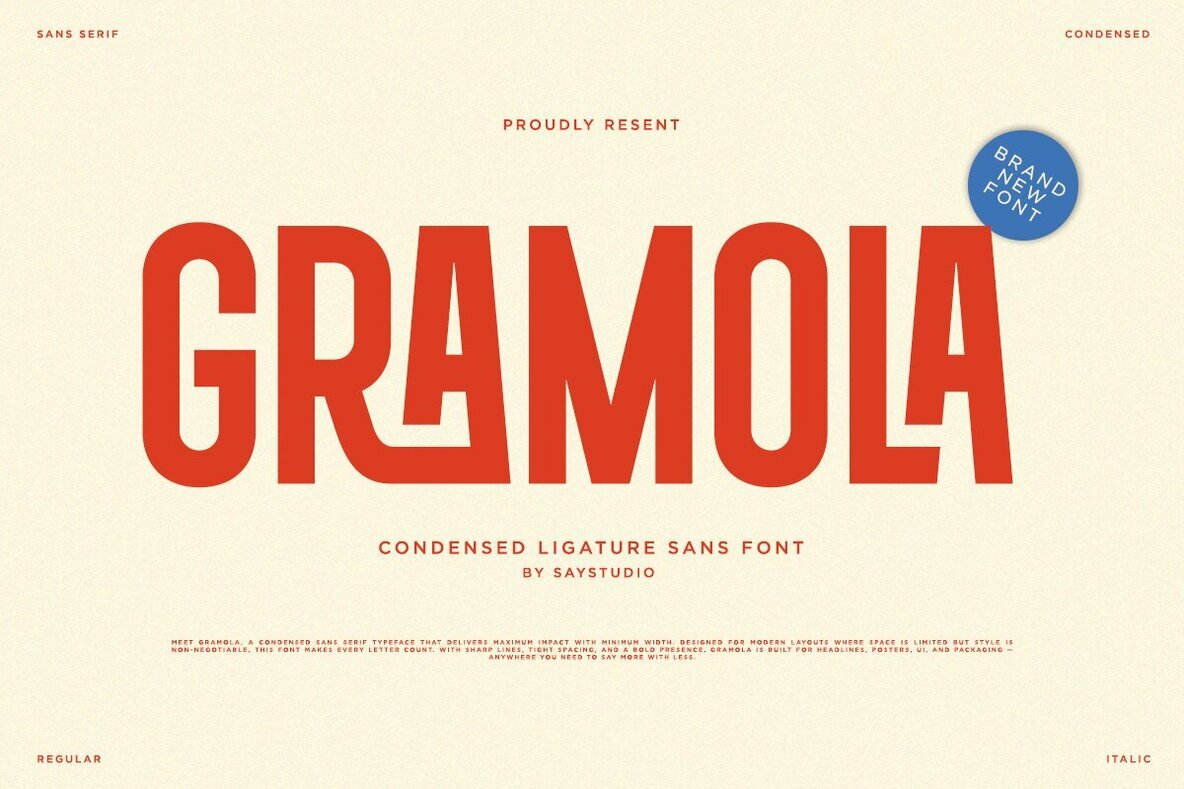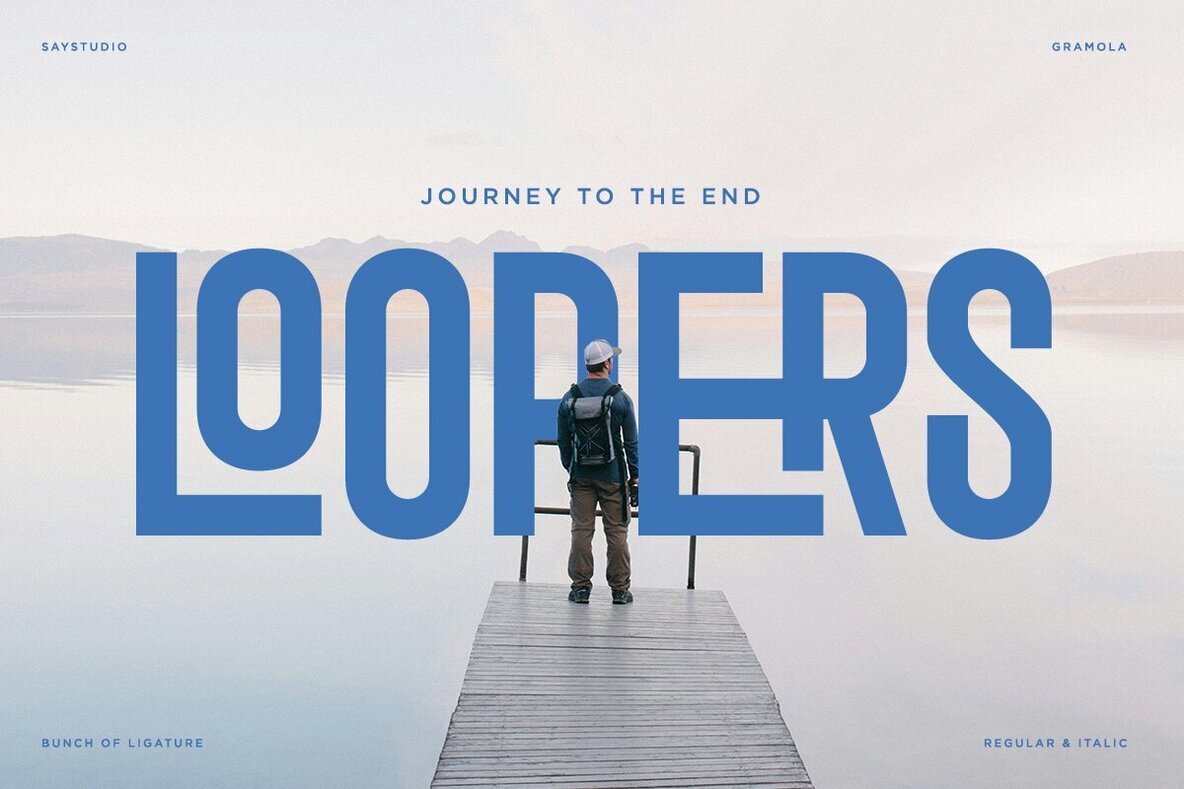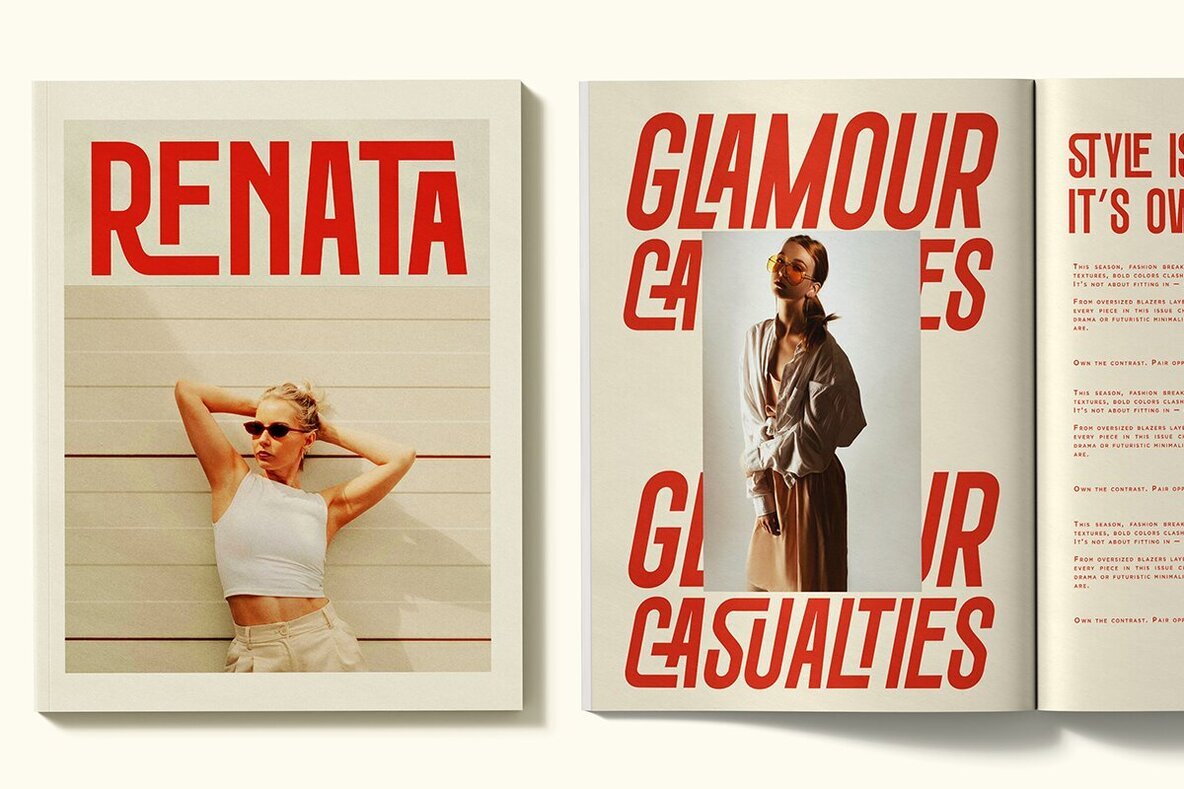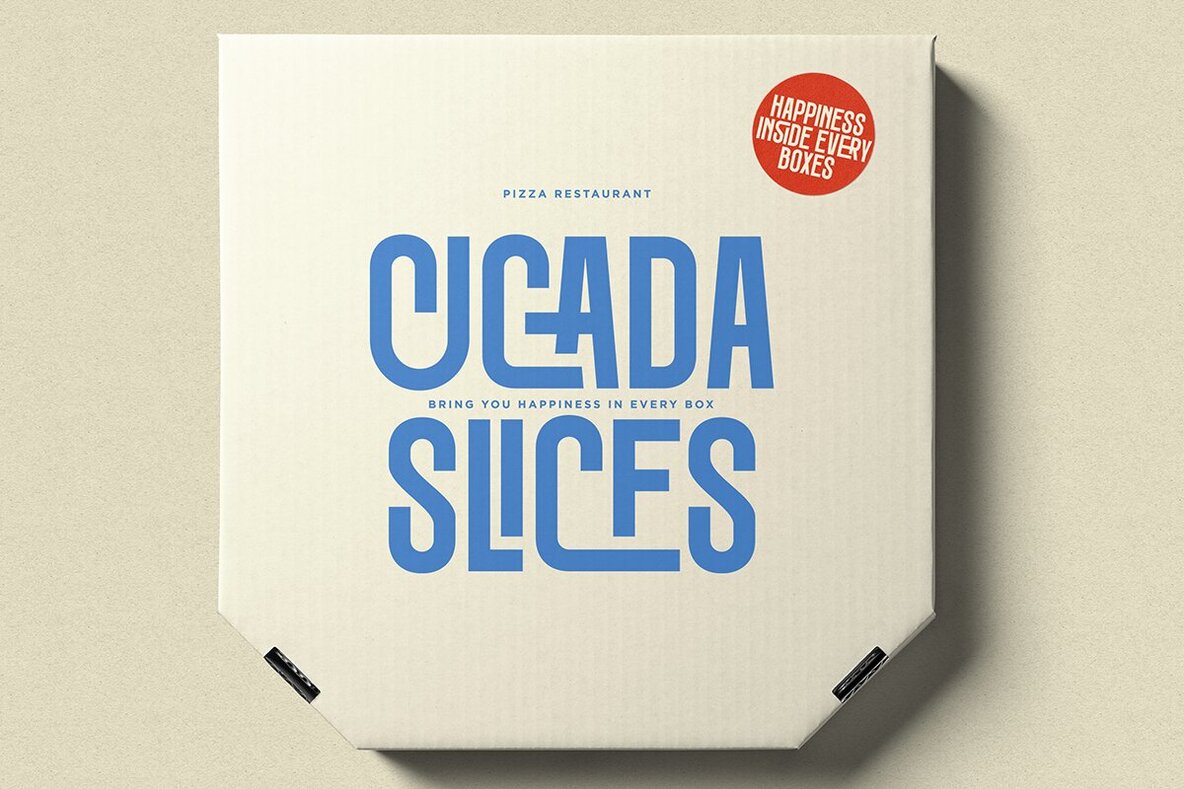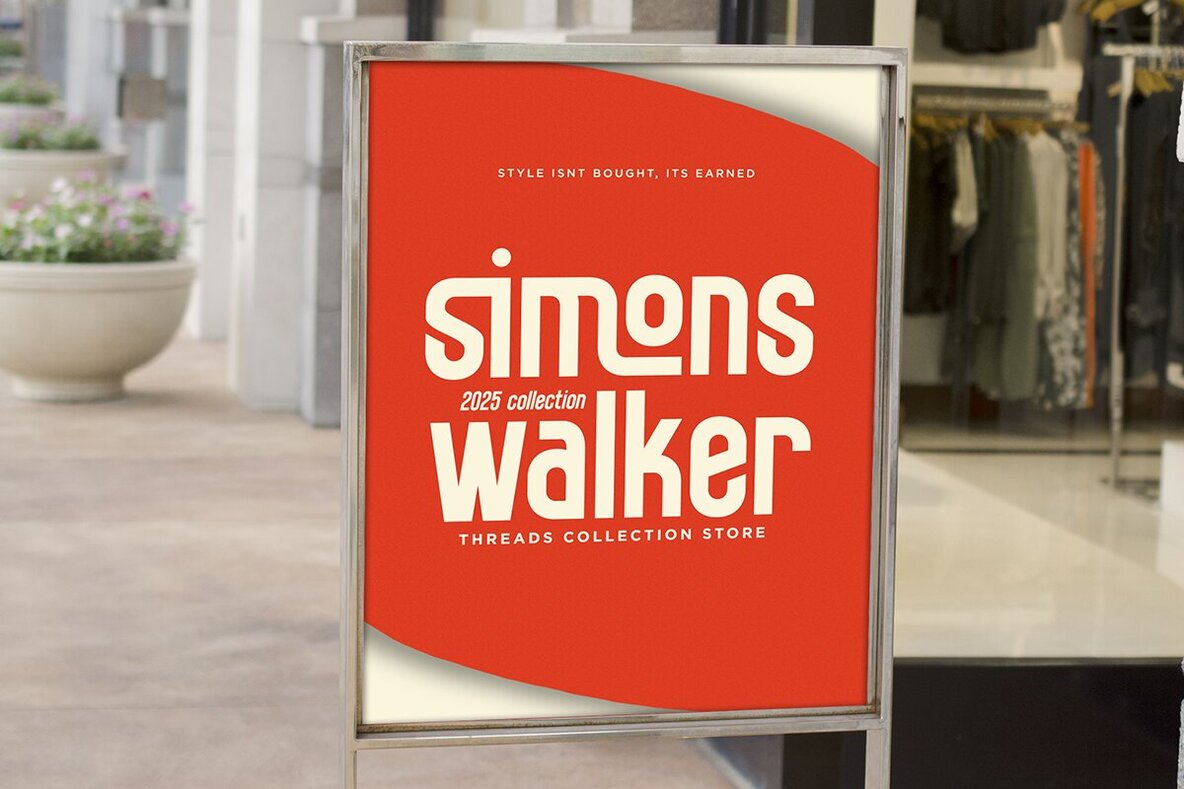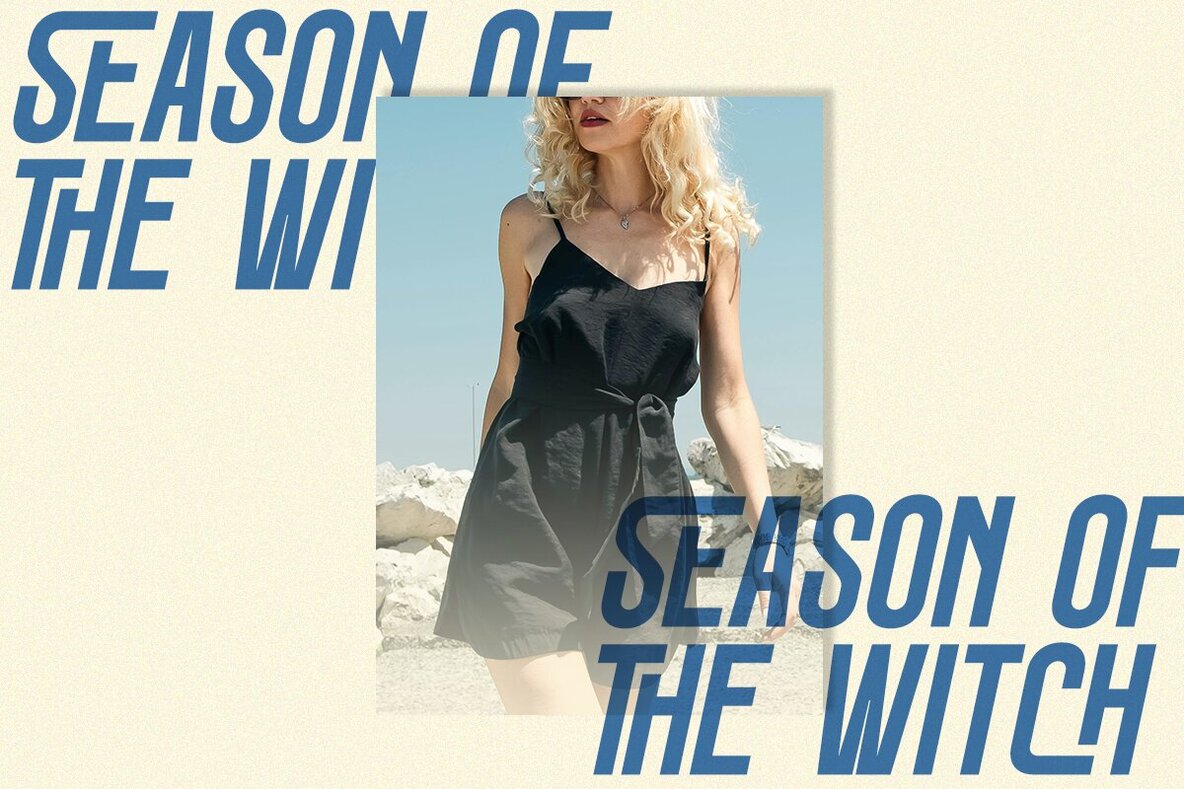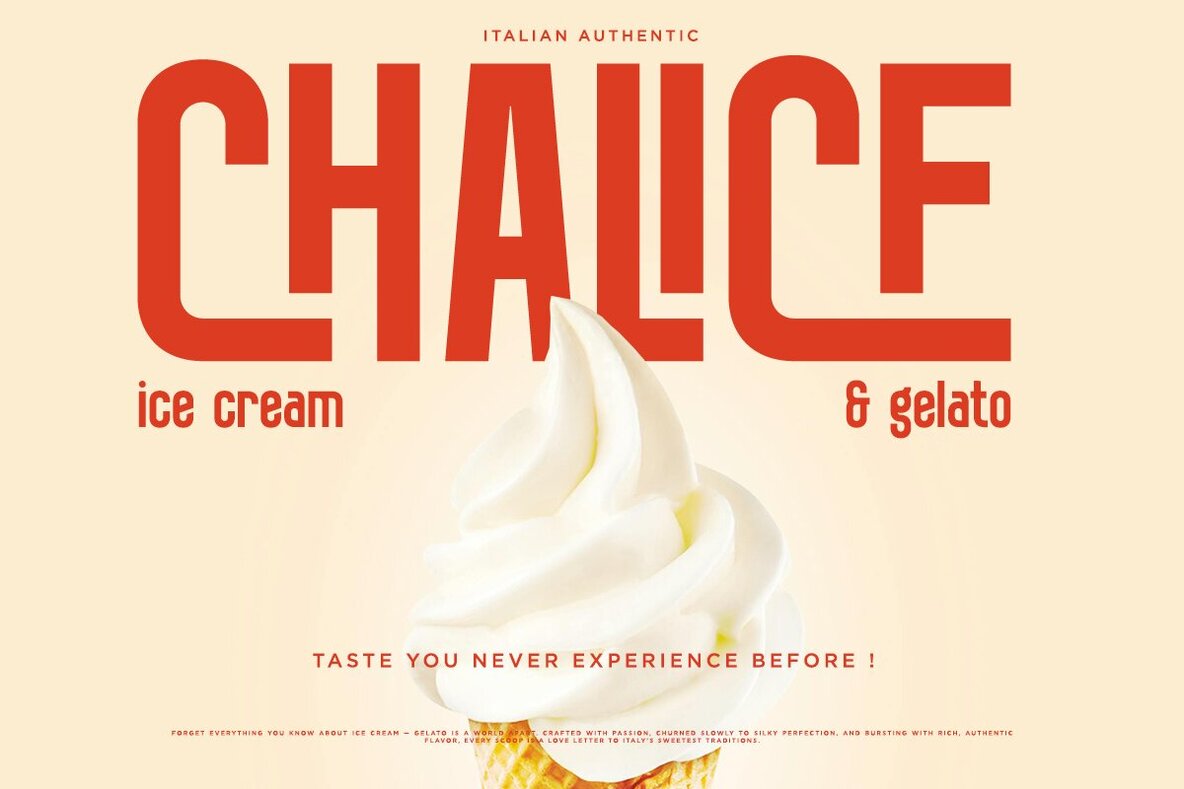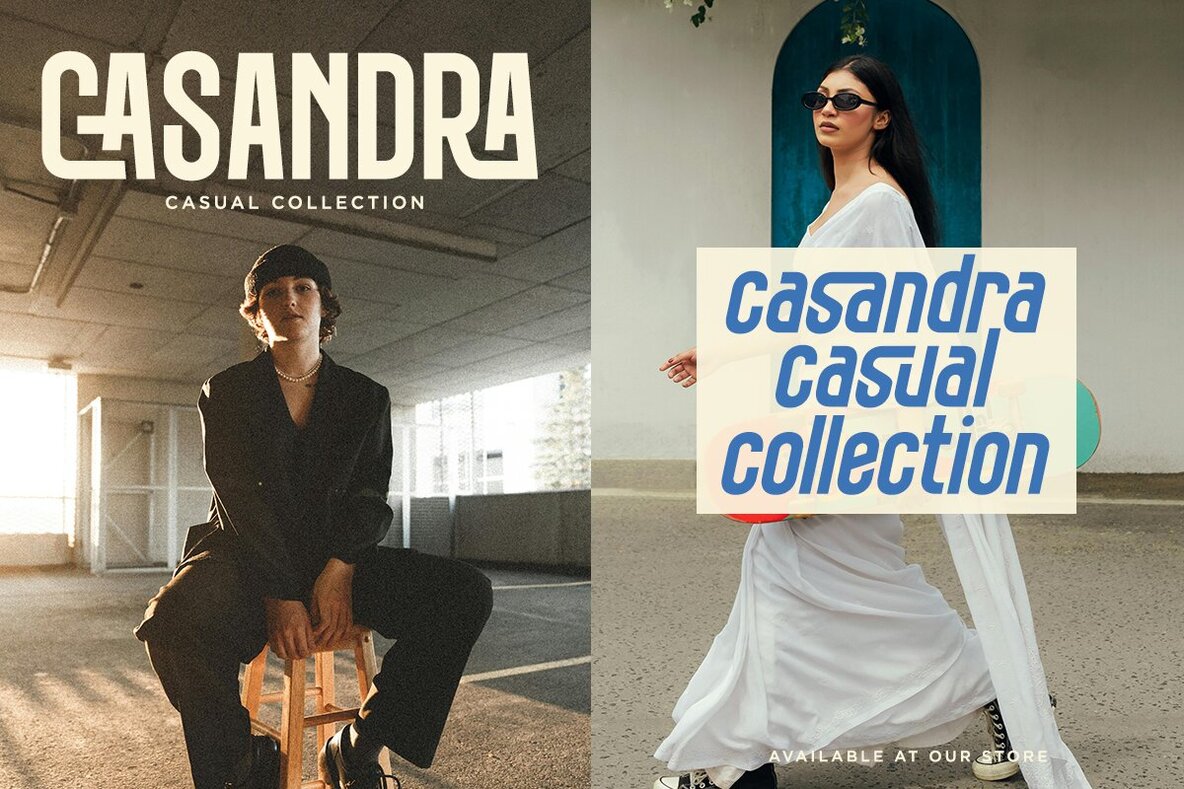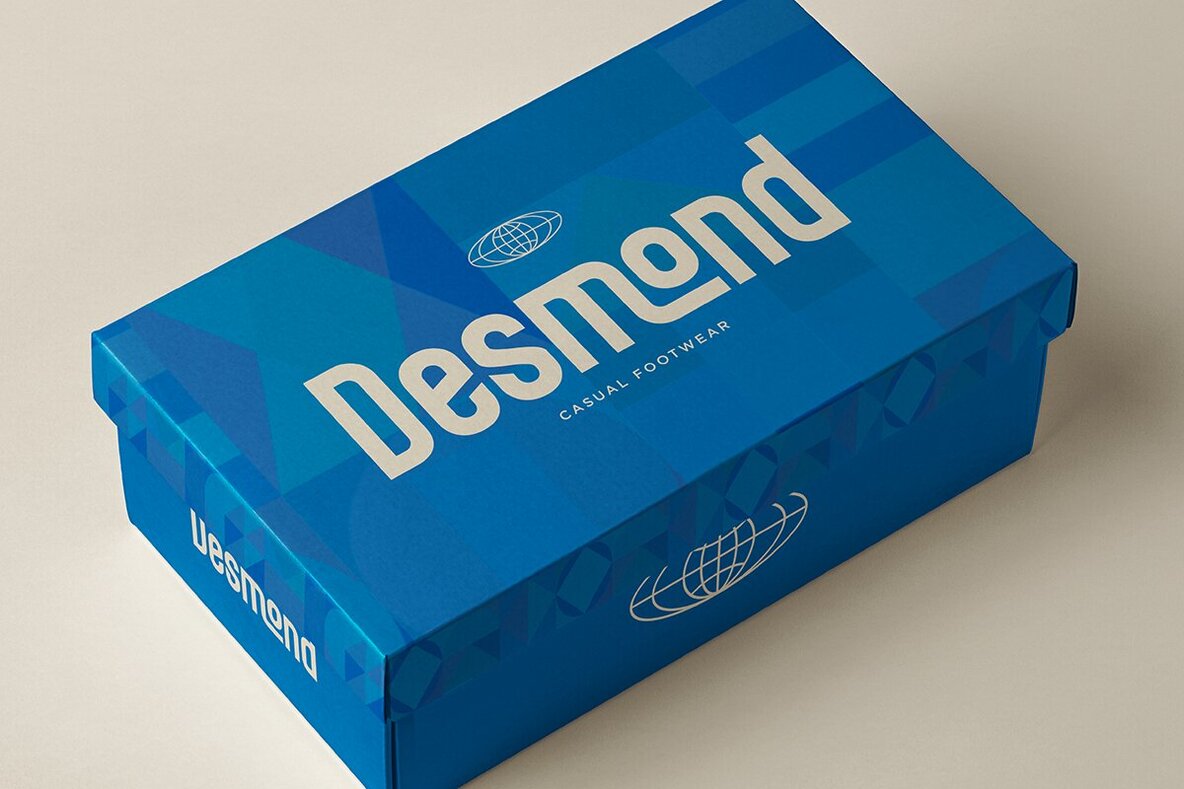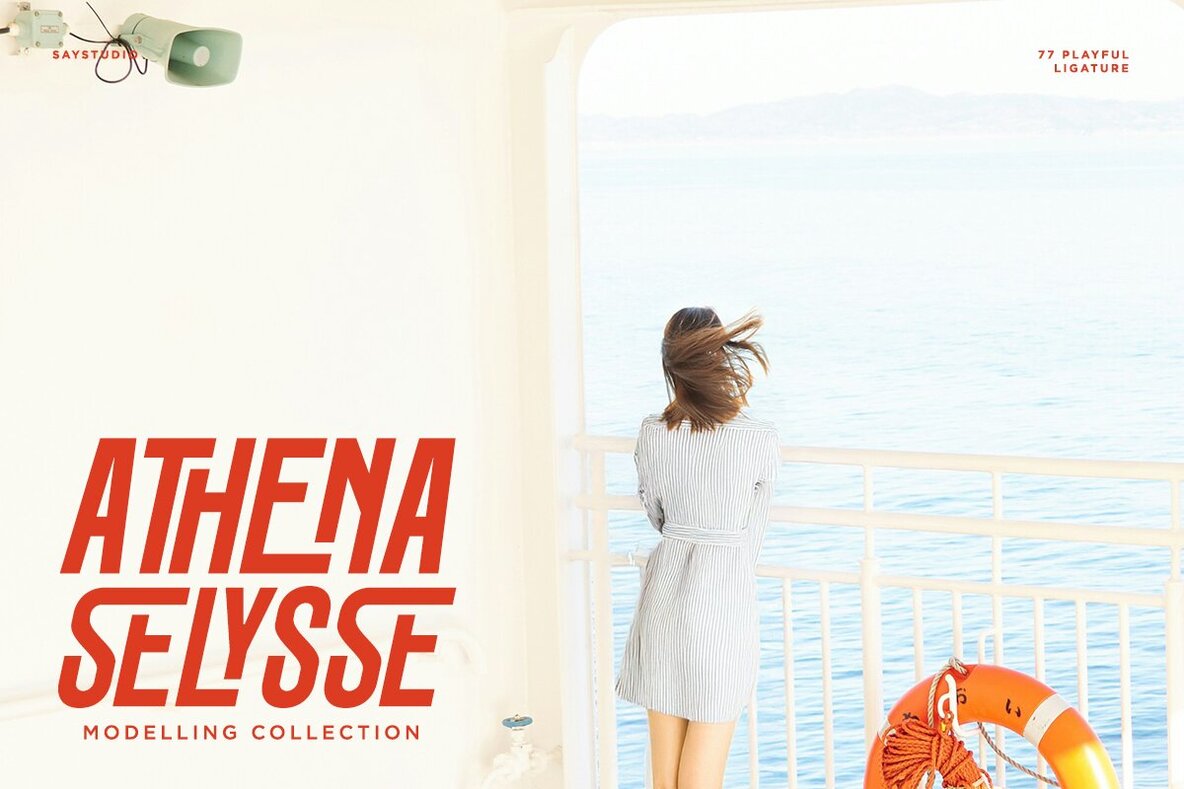
Gramola Font
Gramola offers a modern condensed look that strikes a balance between strong visual presence and understated elegance. Its clean lines and distinct character excel in both headline and body text applications, ensuring legibility without sacrificing personality. Perfect for projects that demand clarity and style—whether in magazines, branding, posters, or digital interfaces—Gramola adapts seamlessly to diverse creative contexts. This font provides versatile design options with stylistic ligatures and alternate letterforms that elevate typographic detail. Comprehensive multilingual support makes it suitable for global projects, while included symbols and numerals complete its usability. Specify Gramola for impactful titles, cohesive branding, and editorial layouts where both structure and individuality are essential.Gramola Condensed Sans Serif Font